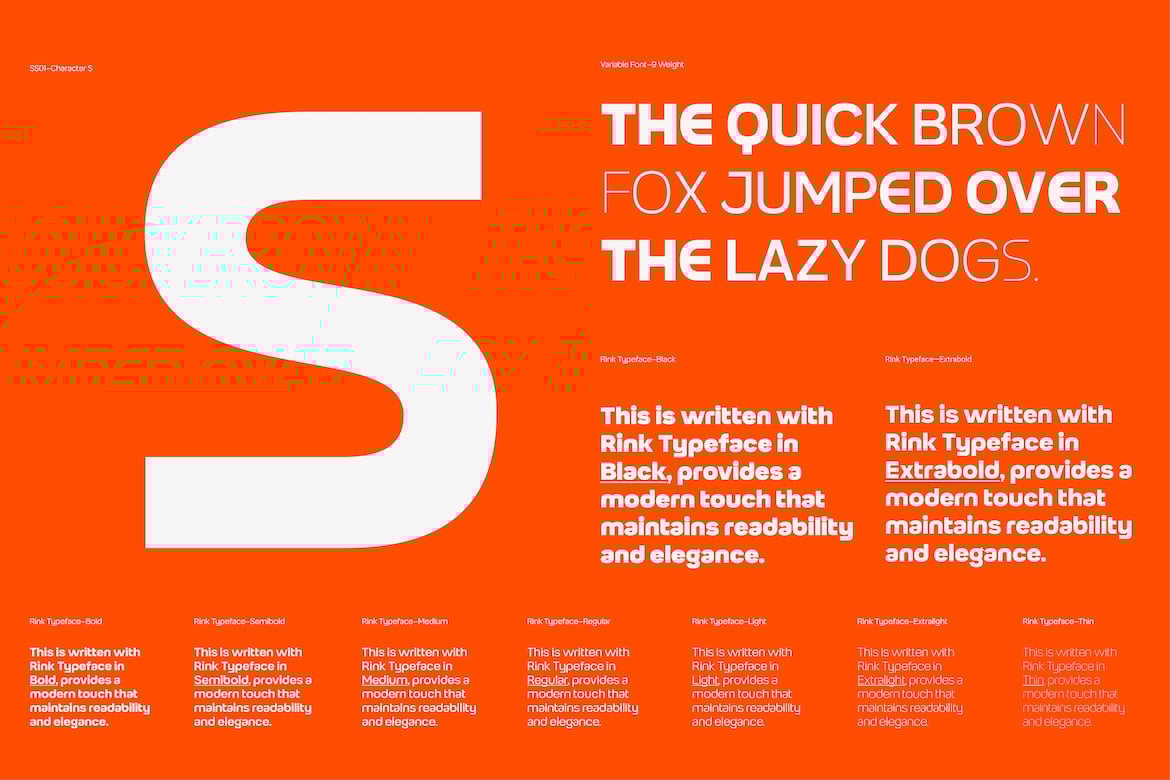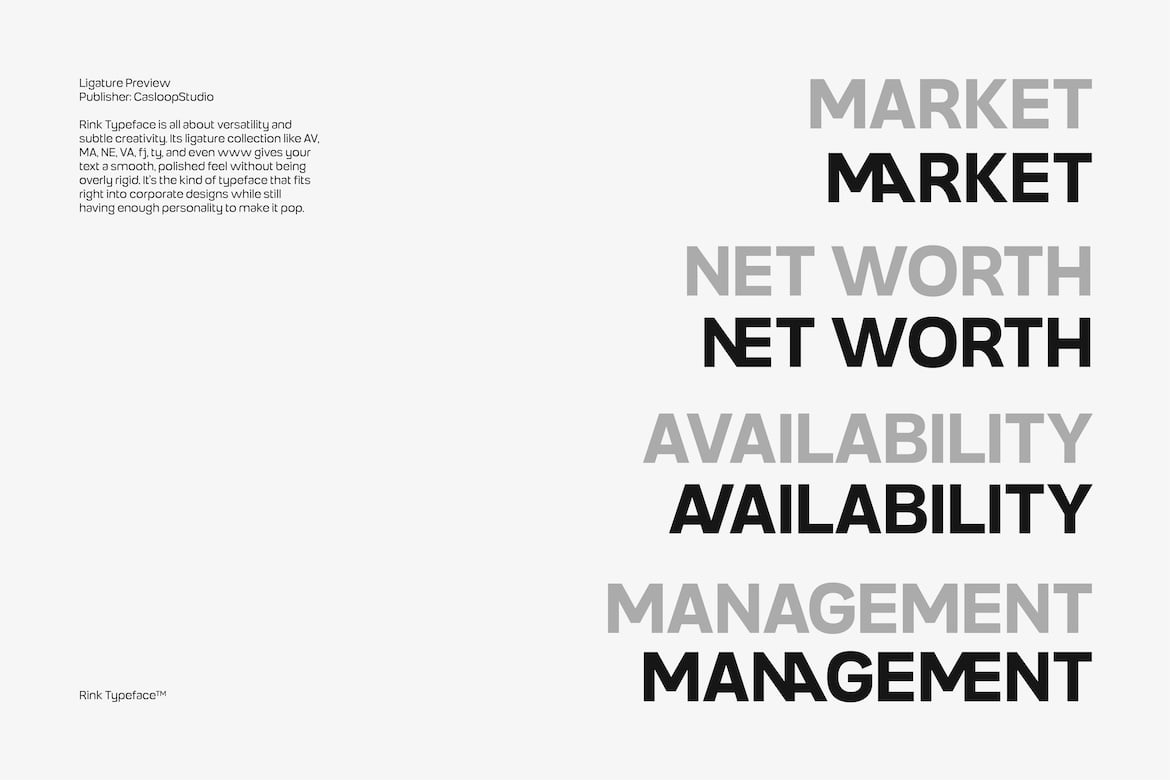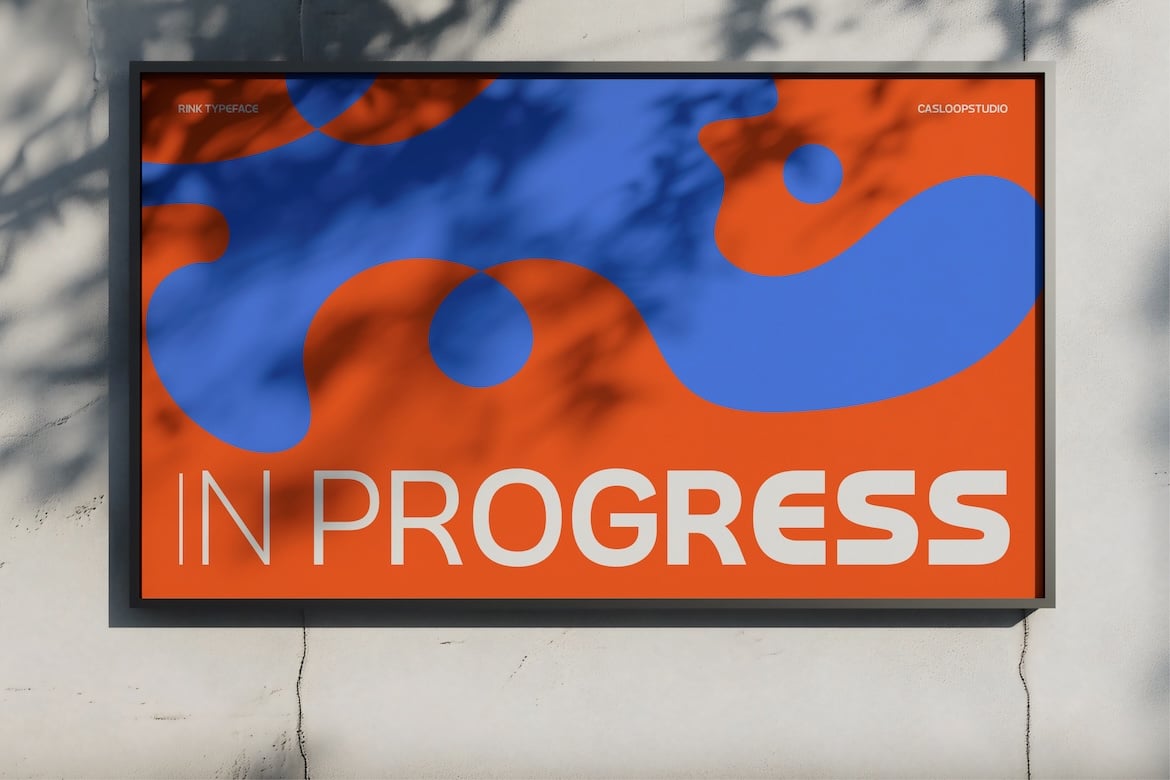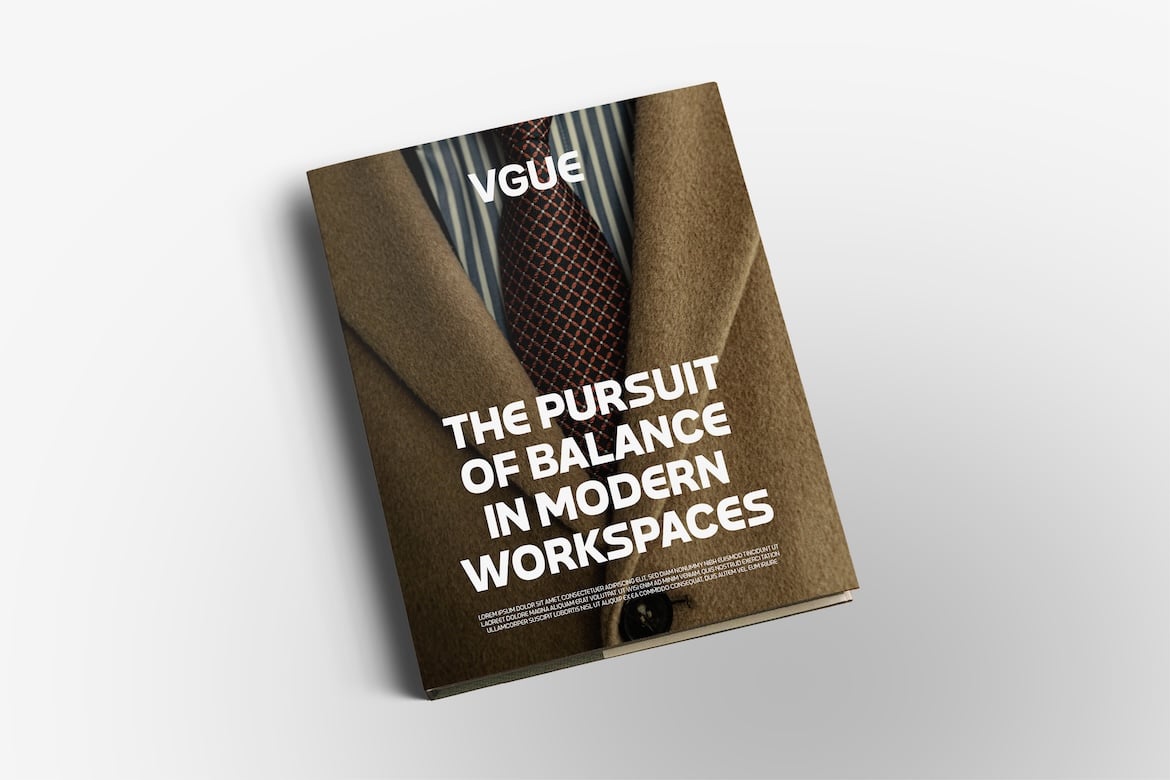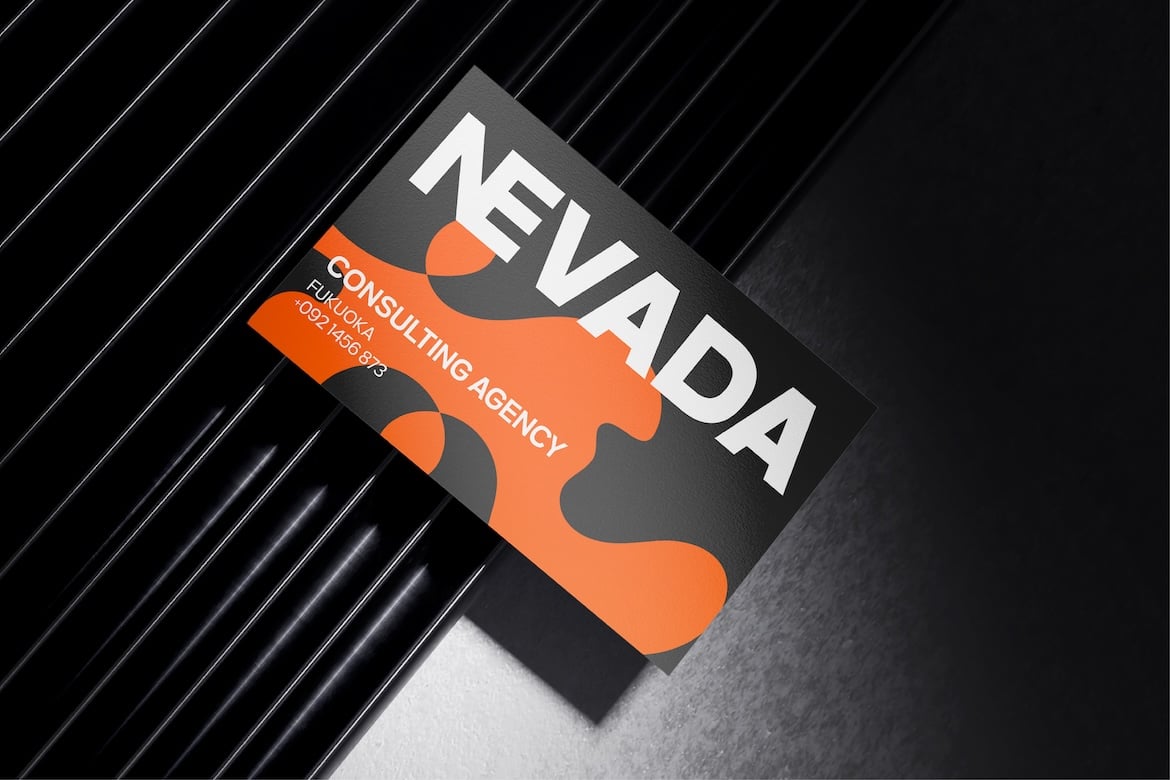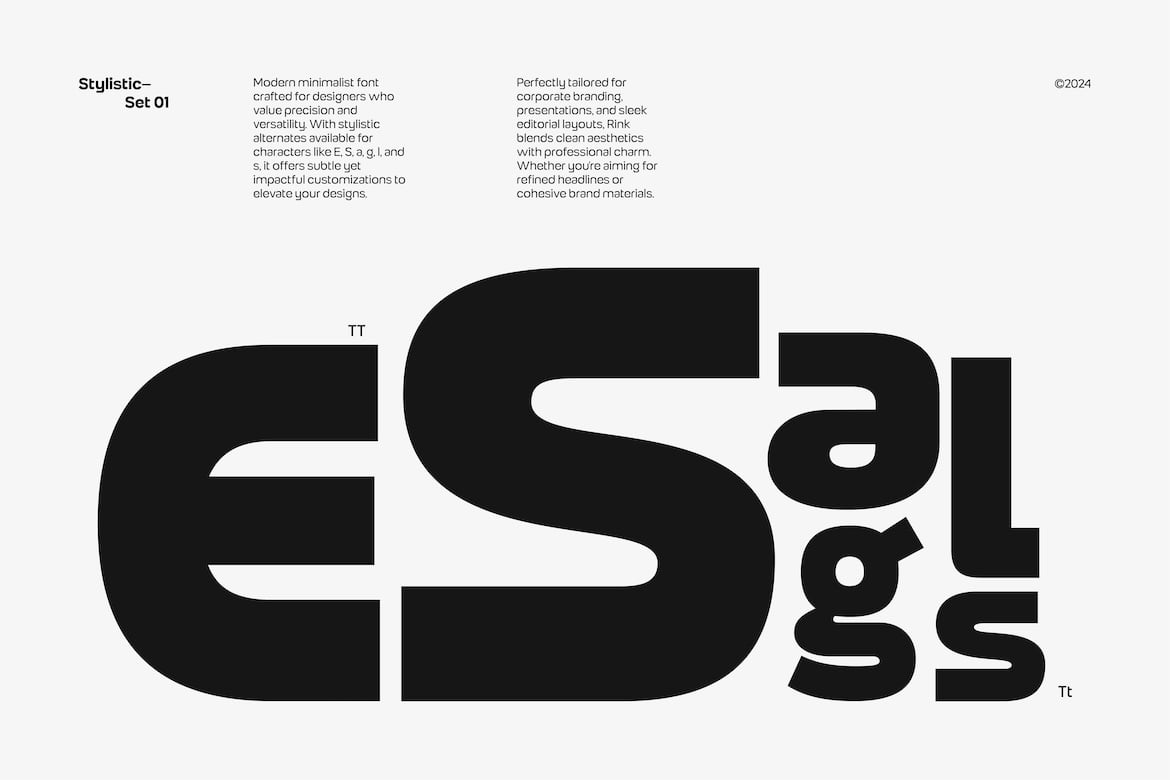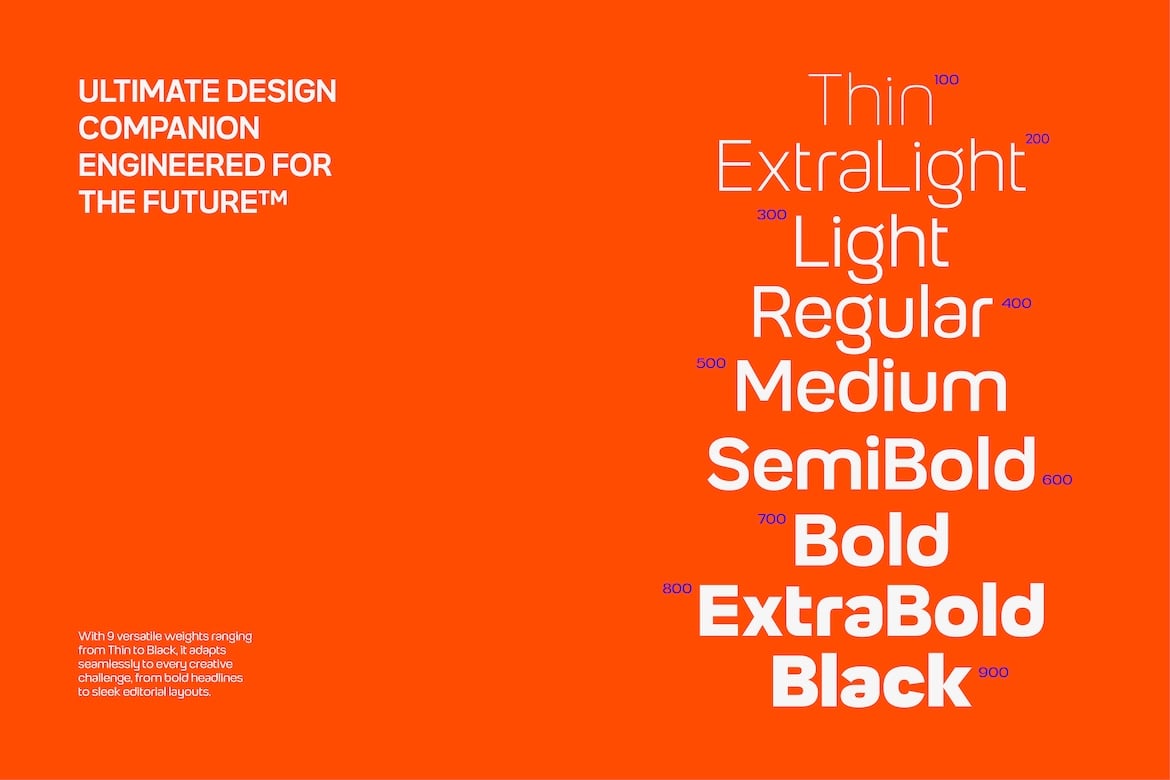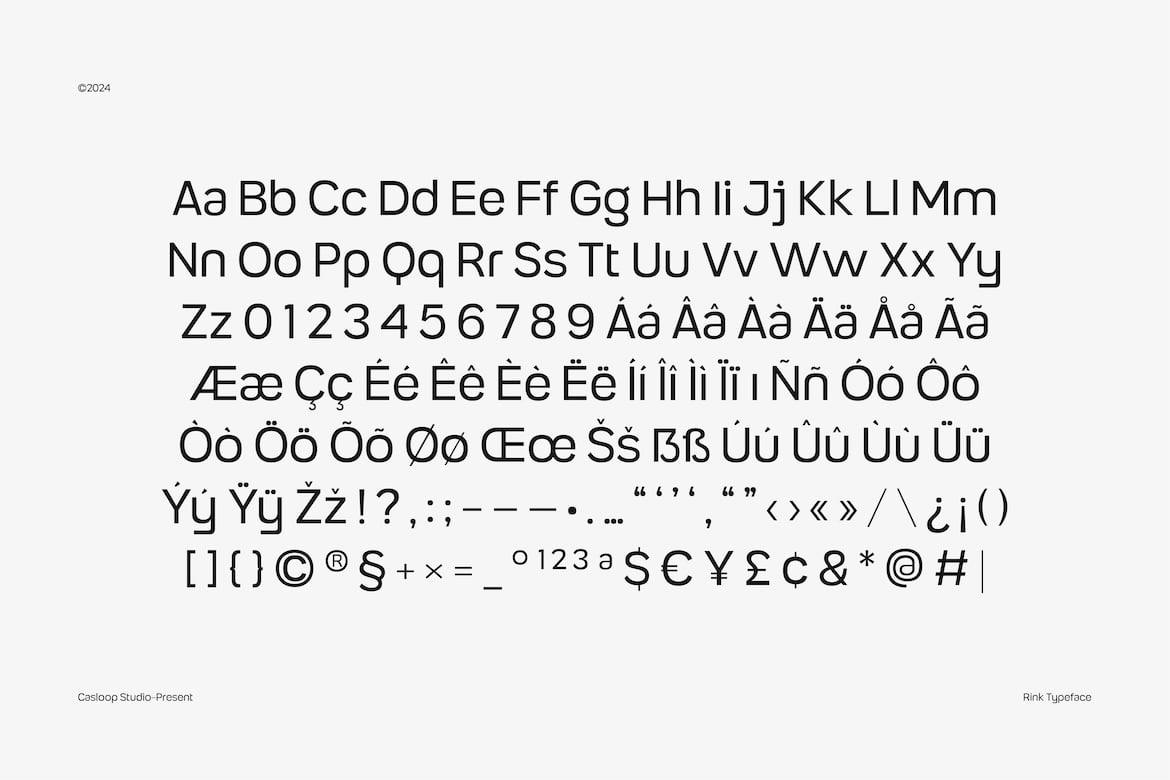
Rink – Geometric Corporate Branding Soft Logo Font
Rink Typeface — The Modern Font That Gets It Done, Effortlessly.
Clean, Bold, Versatile — Just Like Your Ideas.
Rink isn’t here to play safe. It’s here to make your designs pop, your words resonate, and your visuals hit the mark. With 9 weights (from whisper-thin to shout-out-loud Black + Variable Font), buttery-smooth ligatures, and stylish alternates, Rink adapts to any vibe you’re going for — from sleek minimalism to bold statements.
What’s So Special About Rink?
- Nine to Shine: From Thin to Black — your weight, your rules.
- Sleek & Modern: Perfect for everything — logos, posters, websites, branding, you name it.
- Cool Alternates: Add a dash of personality with stylistic sets and slick ligatures.
- Global Player: Multilingual support so you can flex in any language.
For Creators Who:
- Design logos that people can’t stop staring at.
- Write headlines that demand attention.
- Craft sleek editorials and apps that scream pro.
- Love fonts that do the job and look damn good doing it.
Rink. Clean. Cool. Unstoppable.
Whether you’re branding a startup, leveling up your portfolio, or nailing a poster for your next gig, Rink gives your designs that extra edge. It’s minimal when you need it to be. Loud when it has to be. And always versatile.